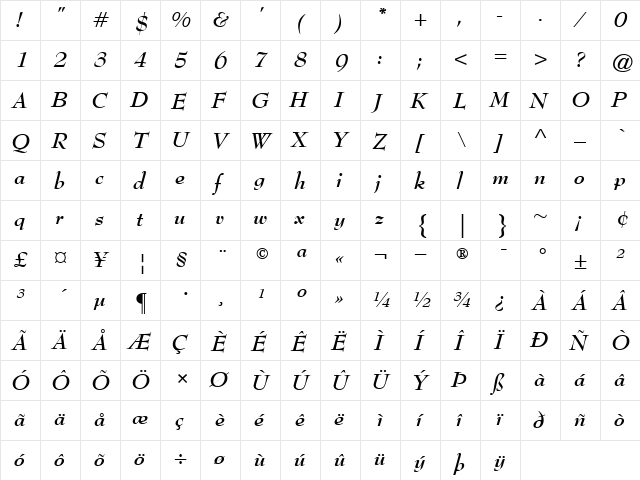
Bernhard Modern Roman BoldItalic Font Preview
Design Context for Bernhard Modern Roman Typeface
Bernhard Modern Roman offers clean, dependable letterforms without strong stylistic allegiance, making it a practical choice for designers who need flexibility. The slanted form adds forward momentum and visual energy. Its bold stroke weight gives it real presence on the page.
Pro Tip: Try Bernhard Modern Roman for annotation and caption copy alongside an upright companion — the contrast in angle creates a dynamic but ordered typographic system.